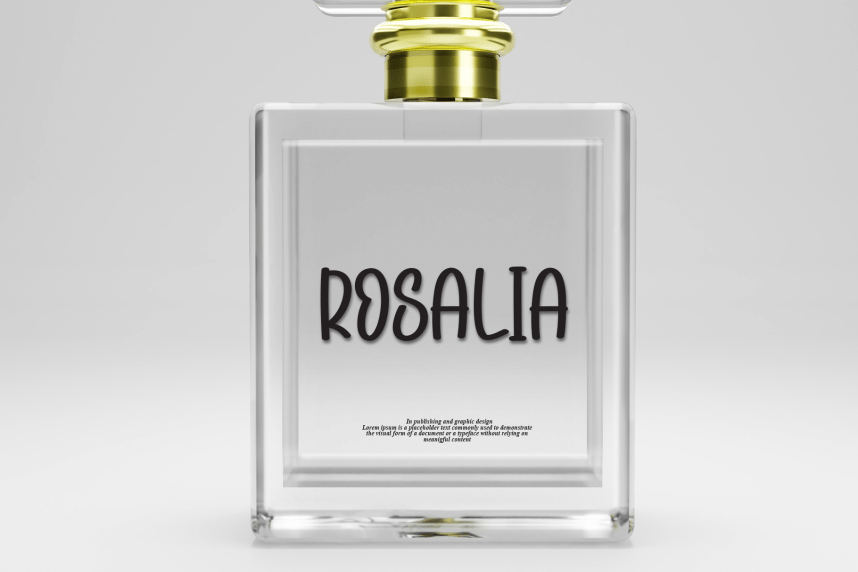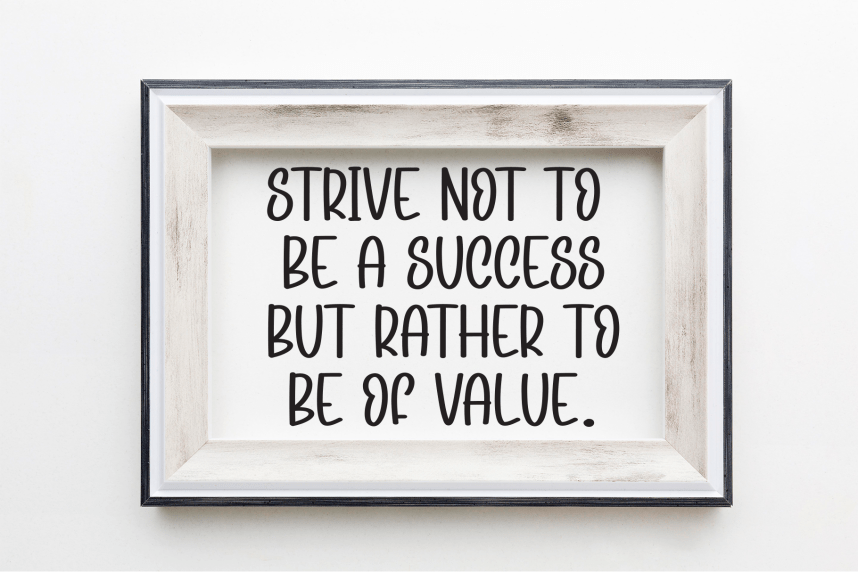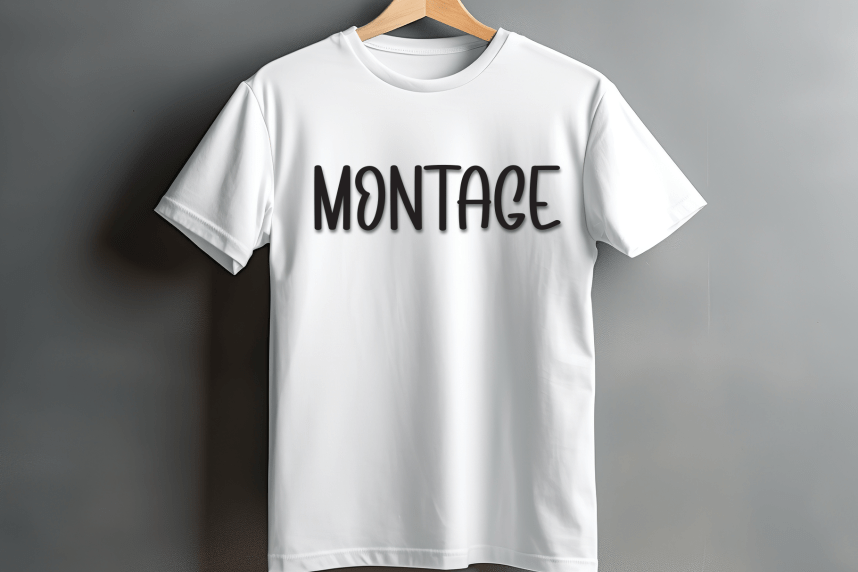
Pink Doodle Handmade Font
Pink Doodle Handmade Font is a sweet and friendly handwritten display font. Cute and fun, this font is ideal for writing wedding invitations, cards, or any other design that might need a playful touch!